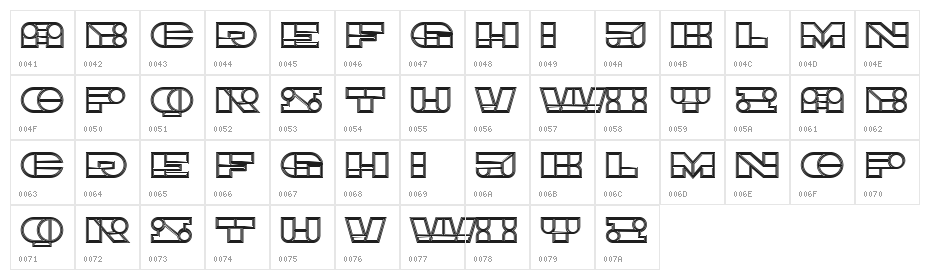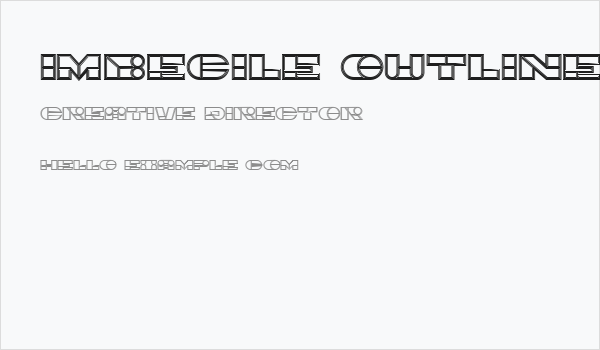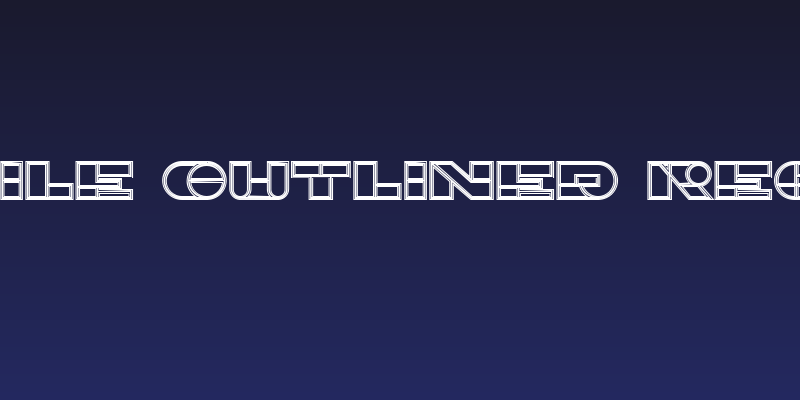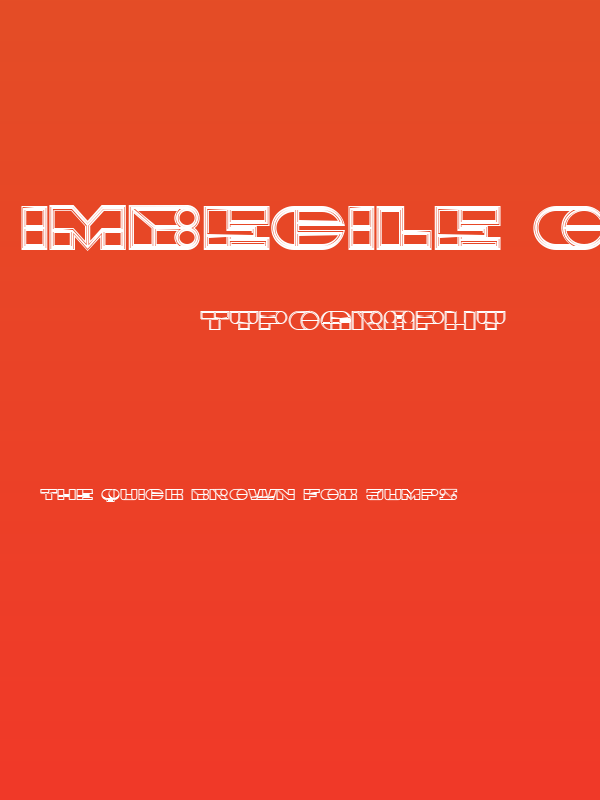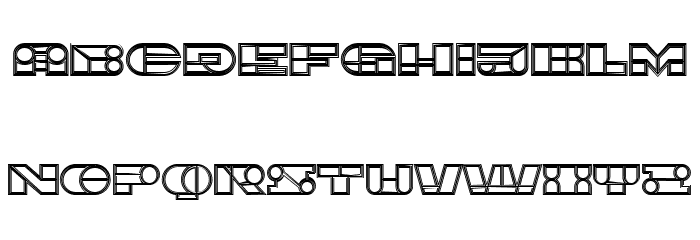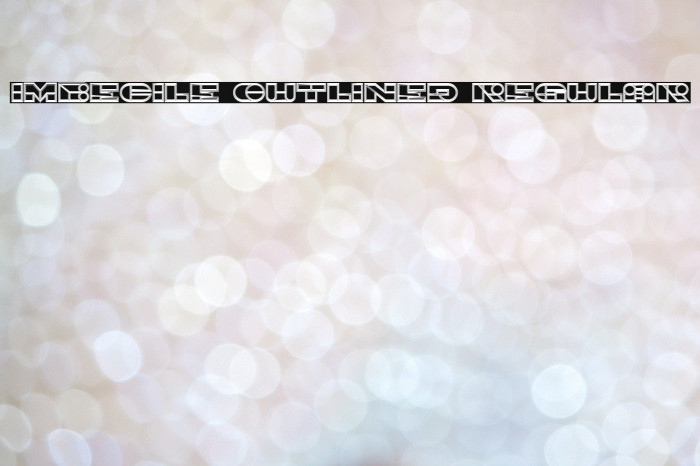
Imbecile Outlined Regular Font
Imbecile Outlined Regular Description
This font features a unique outlined style with a geometric and decorative appearance. Each character is designed with intricate line work that creates a sense of depth and complexity. The uppercase letters are bold and striking, with a consistent outline that defines their shape. The lowercase letters maintain the same stylistic elements, ensuring uniformity across the font. Numbers and special characters are crafted with the same attention to detail, making them stand out while remaining cohesive with the overall design. The font's artistic flair makes it suitable for creative and eye-catching projects.